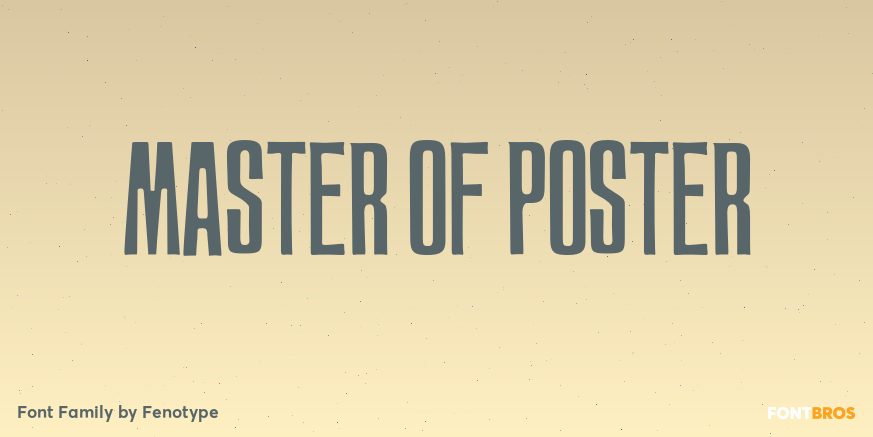
HomeFont BrosSpecial EffectMaster of Poster Special EffectWacky Master of Poster FacebookXPinterestWhatsApp 1 of 1 About Master of Poster is an all caps OpenType family. Each style has over 450 automatic ligatures.  DOWNLOAD NOW People also explored Joan Hull Font Bracknell Forest Font Sintonia Font December Love Font Baby Tulips Font Back to School Font Masculine Absolute Font Catalogue Font Gokha Font 221 0 TagsMaster of Poster Font Previous articleMunichNext articleCavetto LEAVE A REPLY Cancel reply Comment: Please enter your comment! Name:* Please enter your name here Email:* You have entered an incorrect email address! Please enter your email address here Website: Save my name, email, and website in this browser for the next time I comment. Personal Use Free Time for Presents Personal Use Free Read more about this font Foo Personal Use Free Read more about this font Unicorn Kids Personal Use Free Read more about this font Equestrain Personal Use Free Read more about this font BLOG How to Cut Any Font on Cricut: Convert a Font to SVG (Free) Turn any font into a clean SVG so it cuts crisp on Cricut - a quick 3-step workflow using a free font-to-SVG tool. Exploring Font Trends Transform Your Website: Elevate Your Typography with 7 Best Web Font Generators Modern Sans-Serif Fonts That Brands Love in 2025